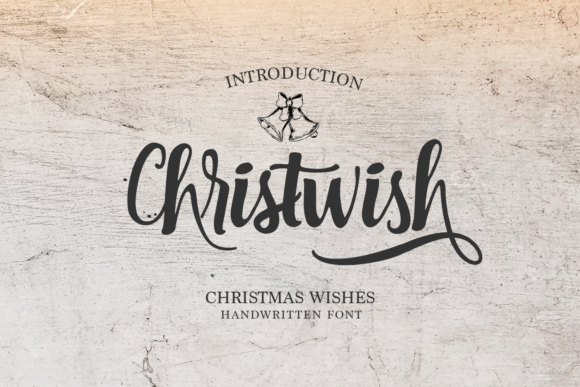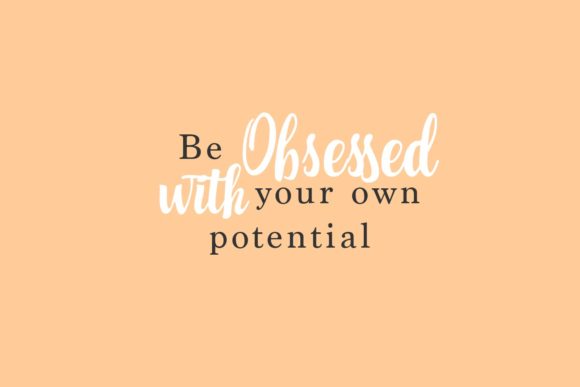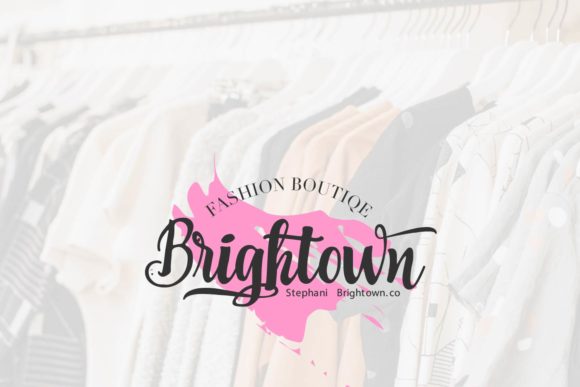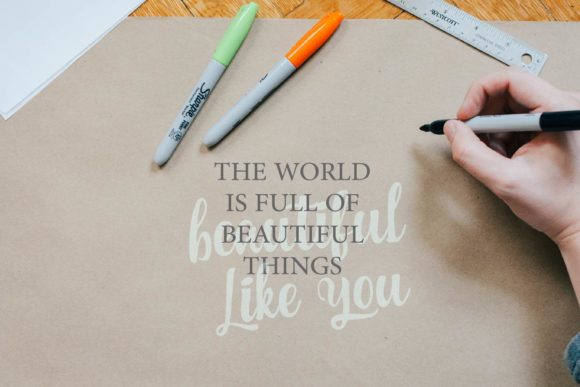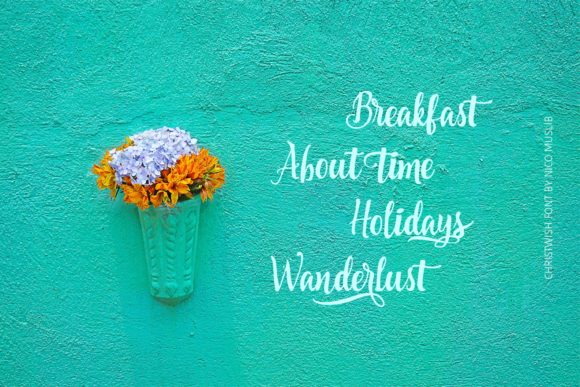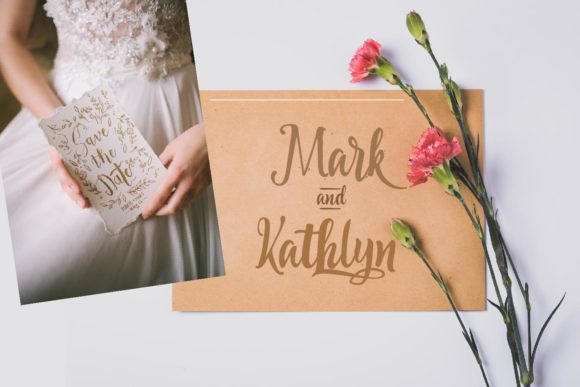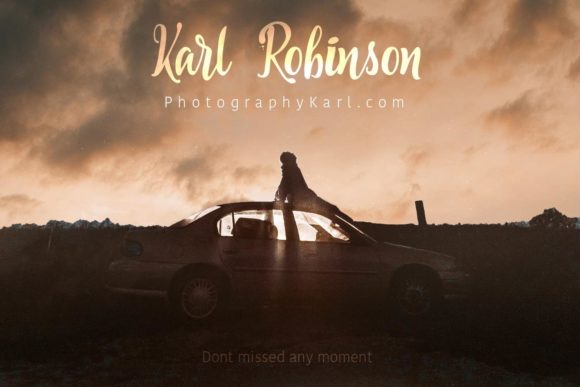
Unleash Your Creativity with Christwish Font
Have you ever been brainstorming a new project, and suddenly, the perfect font pops into your mind, setting the tone for the entire design? That’s exactly what happened to me when I discovered the Christwish Font. This dreamy handwritten font has a way of making your designs come alive, and I’m excited to share it with you.
Whether you’re working on a logo, branding, or quotes, the Christwish Font is the perfect choice to add a touch of elegance and sophistication. Its unique and beautiful letters will make your design stand out from the crowd, and its versatility ensures that it will work seamlessly across various projects.
As a designer, you know how valuable it is to have the right tools at your disposal. The Christwish Font is a game-changer, and I’m confident that it will become your go-to font for all your creative endeavors.
Christwish Font Key Features
- Font Family: Christwish is a unique, custom-designed font that combines elements of various scripts and languages.
- Font Size: Christwish is designed to be highly legible at various font sizes, with optimal readability at 12-24 points.
- Resolution: Supports high-resolution displays, making it suitable for use in digital media, printing, and web design.
- Unique Characteristics: Christwish features a distinctive blend of traditional and modern elements, with intricate details and ornate flourishes that set it apart from other fonts.
- Language Support: Christwish is designed to support a wide range of languages, including Latin, Cyrillic, and Devanagari scripts.
Christwish Font Review
✨ I was initially drawn to the Christwish font due to its unique blend of modern and vintage elements. The font has a distinctive aesthetic that can add a touch of sophistication to any design project. The weight and spacing of the letters are well-balanced, making it easy to read and use in a variety of contexts.
✨ Another strength of the font is its versatility. It can be used for both digital and print projects, and its unique style makes it stand out from more generic sans-serif fonts. I also appreciate the fact that the font is available in multiple weights and styles, which can be useful for creating visual hierarchies and adding emphasis to certain elements.
- ⚠️ The font may not be suitable for all types of projects, particularly those that require a more conservative or traditional look. The unique style of the font can be overwhelming in some contexts, and it may not be the best choice for projects that require a more subtle approach.
- ⚠️ Some users may find the font difficult to read in certain sizes or resolutions. The unique letterforms and spacing of the font can make it challenging to read in small sizes or at low resolutions.
Overall, I think the Christwish font is a solid choice for designers looking to add a touch of modern sophistication to their projects. While it may not be suitable for all types of projects, its unique style and versatility make it a great option for designers who want to stand out from the crowd. With some careful consideration and use, the Christwish font can be a valuable addition to any design toolkit.
Christwish Font is ideal for creative and artistic projects, such as:
– Handwritten invitations and cards
– Watercolor-style illustrations and graphics
– Whimsical children’s book covers and interior designs
To get the most out of Christwish Font, experiment with different font sizes, styles, and colors to create a unique and eye-catching design.